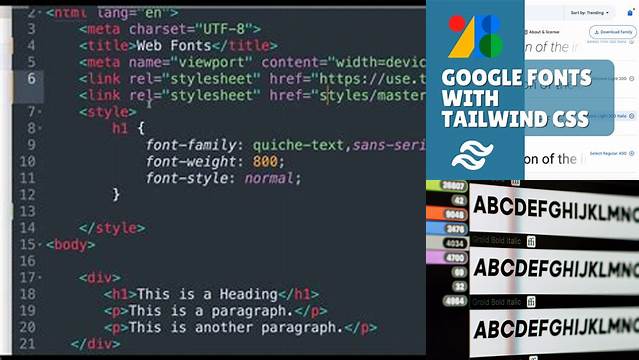
Using Google Fonts: CSS Guide For Stunning Typography
Hey guys! Ever wondered how to make your website’s typography really pop? One of the coolest and easiest ways to do that is by using Google Fonts. Google Fonts is a fantastic library of free, open-source fonts that you can easily integrate into your website. In this comprehensive guide, we’re going to dive deep into how to use Google Fonts in your CSS, making your website look professional and stylish. We'll cover everything from selecting the right fonts to implementing them in your CSS, so buckle up and let's get started!
Why Use Google Fonts?
Before we jump into the how-to, let's talk about why Google Fonts are so awesome. First off, the sheer variety is incredible. Google Fonts offers a massive collection of fonts, ranging from classic serif fonts to modern sans-serif ones, and even some quirky display fonts. This means you have a ton of options to choose from to match your website's style and branding. Another huge advantage is that these fonts are free to use, even for commercial projects. This can save you a lot of money compared to purchasing font licenses. Plus, Google Fonts are designed to be web-optimized, which means they load quickly and won't slow down your website's performance. Slow websites are a big no-no in today's world, so this is a major win. The ease of use is another big factor; integrating Google Fonts into your website is super straightforward, as you'll see in the upcoming sections. So, using Google Fonts not only enhances your website's aesthetics but also ensures a smooth user experience. Think of Google Fonts as your personal typography playground, where you can experiment with different styles and find the perfect fit for your project. By using Google Fonts, you're also ensuring consistency across different browsers and devices, which is crucial for a professional look. And let’s not forget the convenience – no need to host the fonts yourself; Google's servers handle all the heavy lifting, delivering the fonts quickly and efficiently to your users. So, whether you're a seasoned developer or just starting out, Google Fonts are a game-changer for web typography.
Selecting the Right Google Fonts
Choosing the right fonts can make or break your website's design. The key here is to think about your brand and the overall tone you want to convey. Are you aiming for a clean, modern look? Or something more traditional and elegant? Think about your target audience and the message you want to send. Start by browsing the Google Fonts library and experimenting with different pairings. A good rule of thumb is to pair a serif font (like Merriweather or Playfair Display) for headings with a sans-serif font (like Open Sans or Roboto) for body text. This creates a nice visual contrast and makes your content easier to read. You can also use tools like FontPair or Typekit to get inspiration and see how different fonts look together. When selecting fonts, consider readability. Some fonts look beautiful but can be hard to read, especially in large blocks of text. Always prioritize fonts that are clear and easy on the eyes. Also, pay attention to font weights and styles. A font family might offer multiple weights (like light, regular, bold) and styles (like italic, condensed). Using these variations can add depth and visual interest to your design. Remember, consistency is key. Stick to a maximum of two or three fonts on your website to maintain a cohesive look. Overusing fonts can make your site look cluttered and unprofessional. Take your time to experiment and find the perfect combination that reflects your brand's personality and enhances your website's usability. And don’t be afraid to ask for feedback! Show your font choices to colleagues or friends and see what they think. A fresh perspective can often help you make the best decision. Ultimately, the right Google Fonts will not only make your website look great but also improve the overall user experience by making your content more engaging and readable.
Adding Google Fonts to Your Website
Okay, now for the fun part: actually adding those awesome Google Fonts to your website! Google makes this process super simple. There are a few ways to do it, but the most common method is by linking to the Google Fonts stylesheet in your HTML. First, head over to the Google Fonts website and choose the fonts you want to use. Once you've selected a font, click on it, and you'll see a page with different weights and styles. Choose the ones you need and then click the "Select this style" button next to each one. A sidebar will pop up with different options for embedding the fonts. The easiest way is to use the <link> tag. Google provides a code snippet that you can copy and paste into the <head> section of your HTML file. This code snippet looks something like this:
Make sure to replace "YourFontName" with the actual name of the font you've chosen. You can also specify different weights (like 400 for regular and 700 for bold) by adding them to the URL. Once you've added the <link> tag to your HTML, you can start using the font in your CSS. To do this, use the font-family property and specify the font name as provided by Google. For example:
body {
font-family: 'YourFontName', sans-serif;
}
h1, h2, h3 {
font-family: 'YourFontName', serif;
}
The sans-serif and serif parts are fallback fonts, which will be used if the Google Font can't be loaded for some reason. This ensures your website still looks decent even if there's a temporary issue with Google's servers. Another way to add Google Fonts is by using the @import rule in your CSS file. Google provides a code snippet for this as well, which you can add at the very top of your CSS file. However, using the <link> tag is generally recommended because it can improve performance by allowing the browser to download the font stylesheet in parallel with other resources. So, there you have it! Adding Google Fonts to your website is a breeze, and it can make a huge difference in your site's overall look and feel. Experiment with different fonts and have fun creating beautiful typography!
Implementing Google Fonts in CSS
Now that you've added the Google Fonts to your website, let's dive into how you can actually use them in your CSS. As we mentioned earlier, the key is the font-family property. This property allows you to specify the font you want to use for a particular HTML element. To use a Google Font, simply set the font-family property to the name of the font, as provided by Google. For example, if you're using the Roboto font, your CSS might look something like this:
body {
font-family: 'Roboto', sans-serif;
}
h1 {
font-family: 'Roboto', sans-serif;
}
p {
font-family: 'Roboto', sans-serif;
}
This will apply the Roboto font to the entire body of your website, as well as all <h1> headings and <p> paragraphs. You can, of course, use different fonts for different elements to create visual hierarchy and interest. For example, you might use a serif font for headings and a sans-serif font for body text, as we discussed earlier. When specifying the font-family, it's always a good idea to include a fallback font. This is a generic font family (like serif, sans-serif, monospace) that the browser will use if the specified Google Font can't be loaded. This ensures that your website still looks readable even if there's a problem with the font loading. You can also use font weights and styles to further customize your typography. Font weight refers to the thickness of the font (e.g., regular, bold), while font style refers to whether the font is italic or not. To use different weights and styles, you need to make sure you've selected them when adding the font to your website. Then, you can use the font-weight and font-style properties in your CSS. For example:
h1 {
font-family: 'Roboto', sans-serif;
font-weight: 700; /* Bold */
}
p {
font-family: 'Roboto', sans-serif;
font-style: italic; /* Italic */
}
This will make your <h1> headings bold and your <p> paragraphs italic. Experimenting with these properties can help you create a more dynamic and engaging typography. And remember, less is often more. Stick to a limited number of fonts and styles to maintain a clean and professional look. By mastering the font-family, font-weight, and font-style properties, you can create stunning typography that elevates your website's design and user experience.
So there you have it, guys! A comprehensive guide to using Google Fonts in CSS. We've covered everything from why Google Fonts are awesome to selecting the right fonts, adding them to your website, implementing them in your CSS, optimizing for performance, and troubleshooting common issues. By now, you should be feeling confident and ready to unleash the power of Google Fonts on your own projects. Remember, typography is a crucial element of web design, and choosing the right fonts can make a huge difference in your website's overall look and feel. Google Fonts makes it easy to access a vast library of high-quality, free fonts, so there's no excuse not to experiment and find the perfect fonts for your brand. Don't be afraid to try different pairings, weights, and styles to create a unique and engaging typography. And always keep performance in mind – optimize your font loading to ensure a smooth user experience. With a little practice and attention to detail, you can create stunning typography that elevates your website's design and helps you achieve your goals. So go forth and make your websites beautiful with Google Fonts! Happy coding!